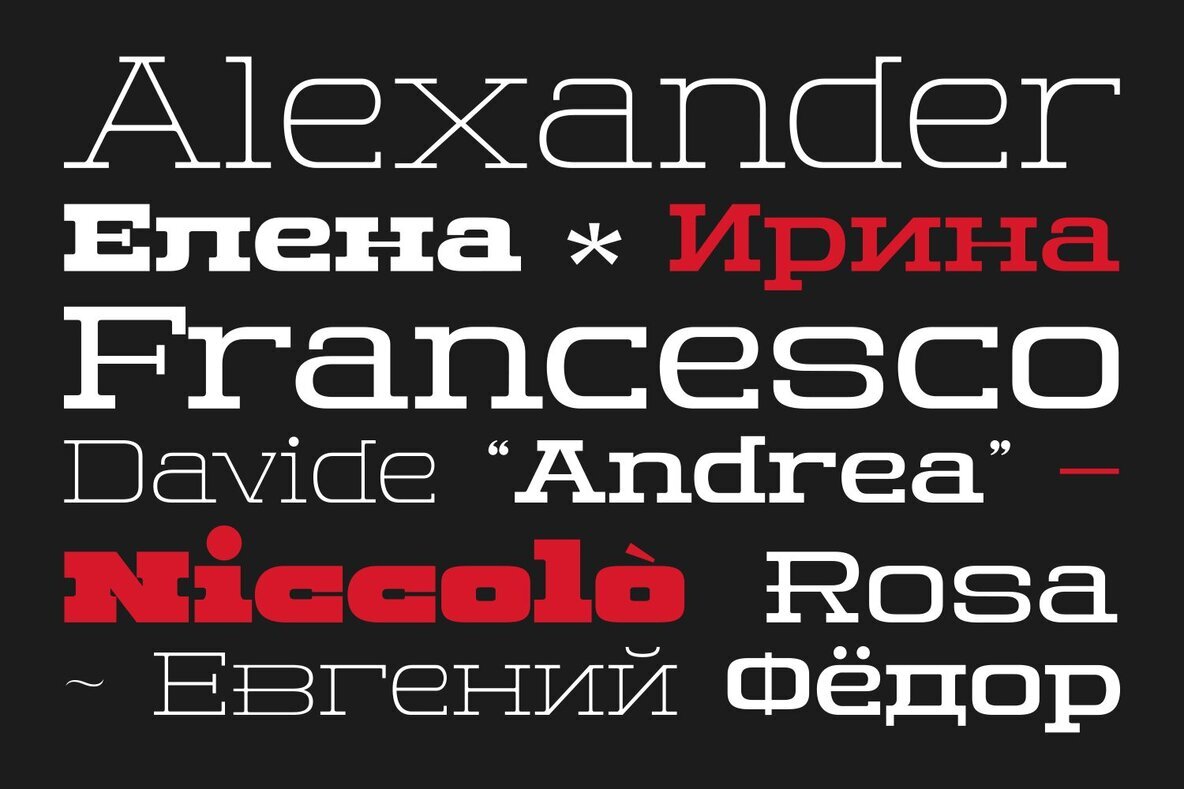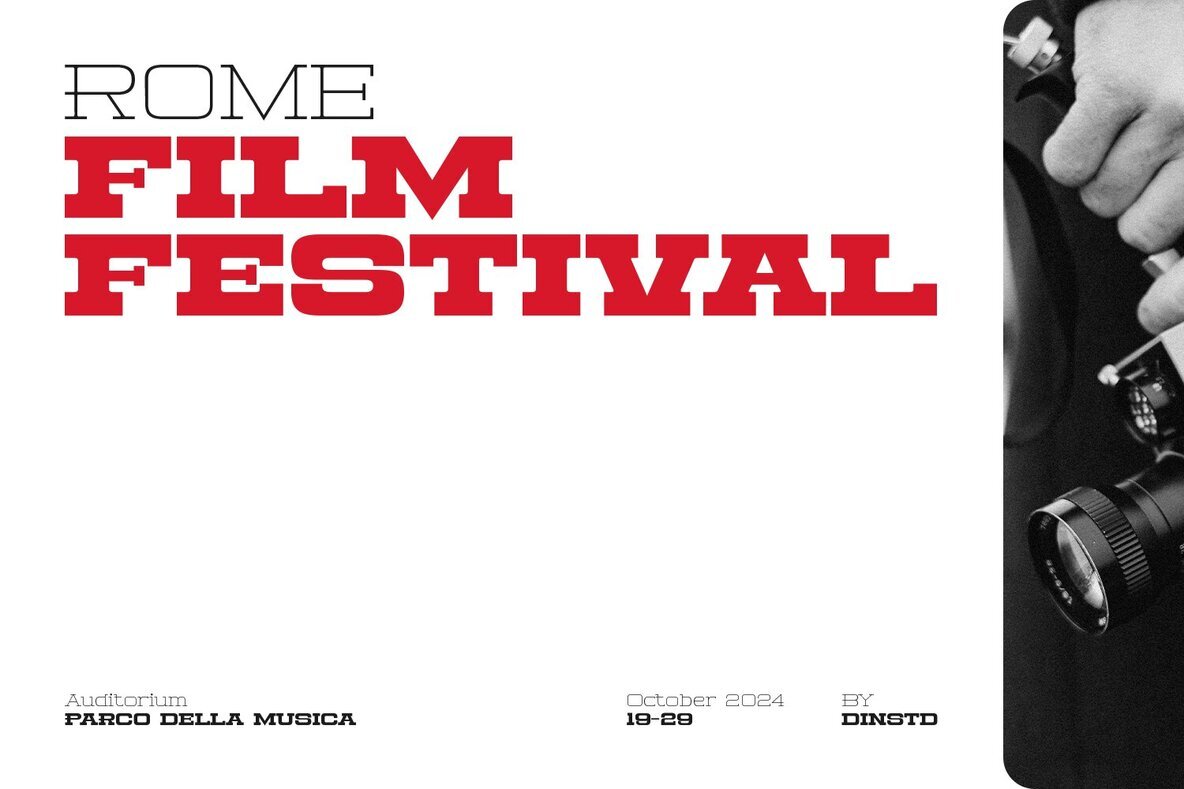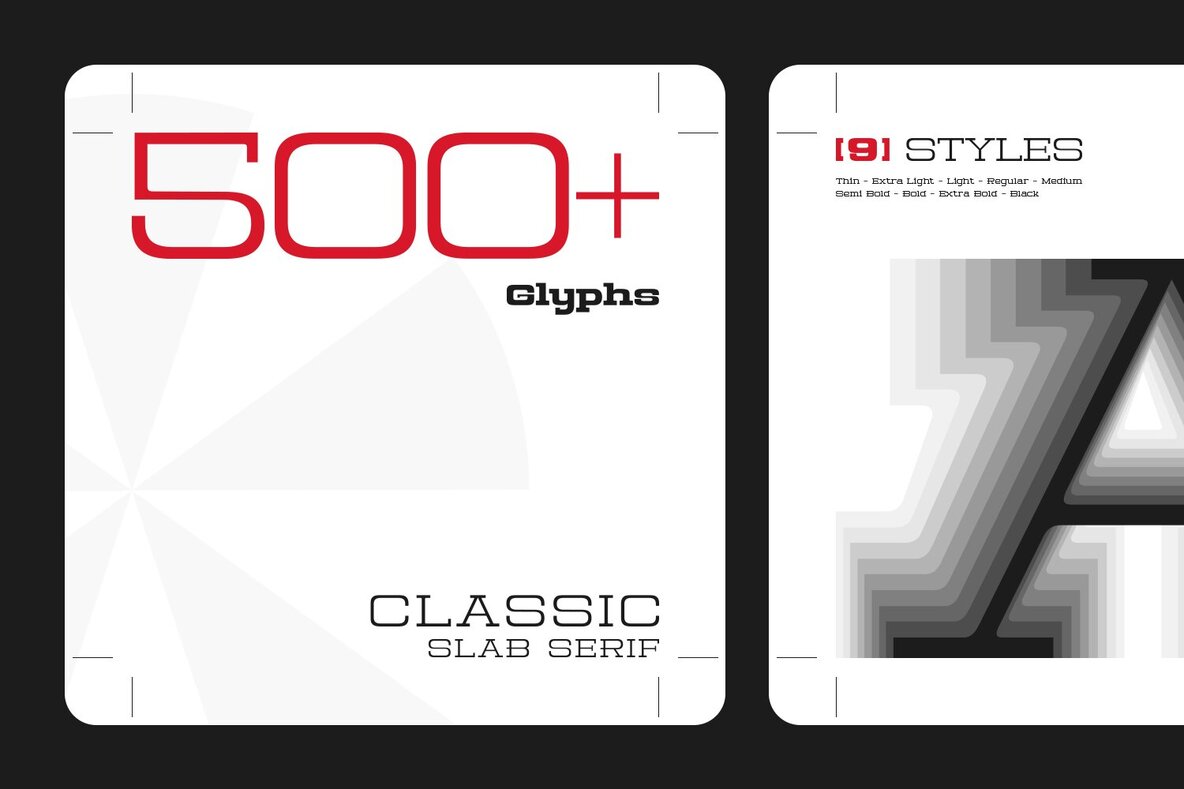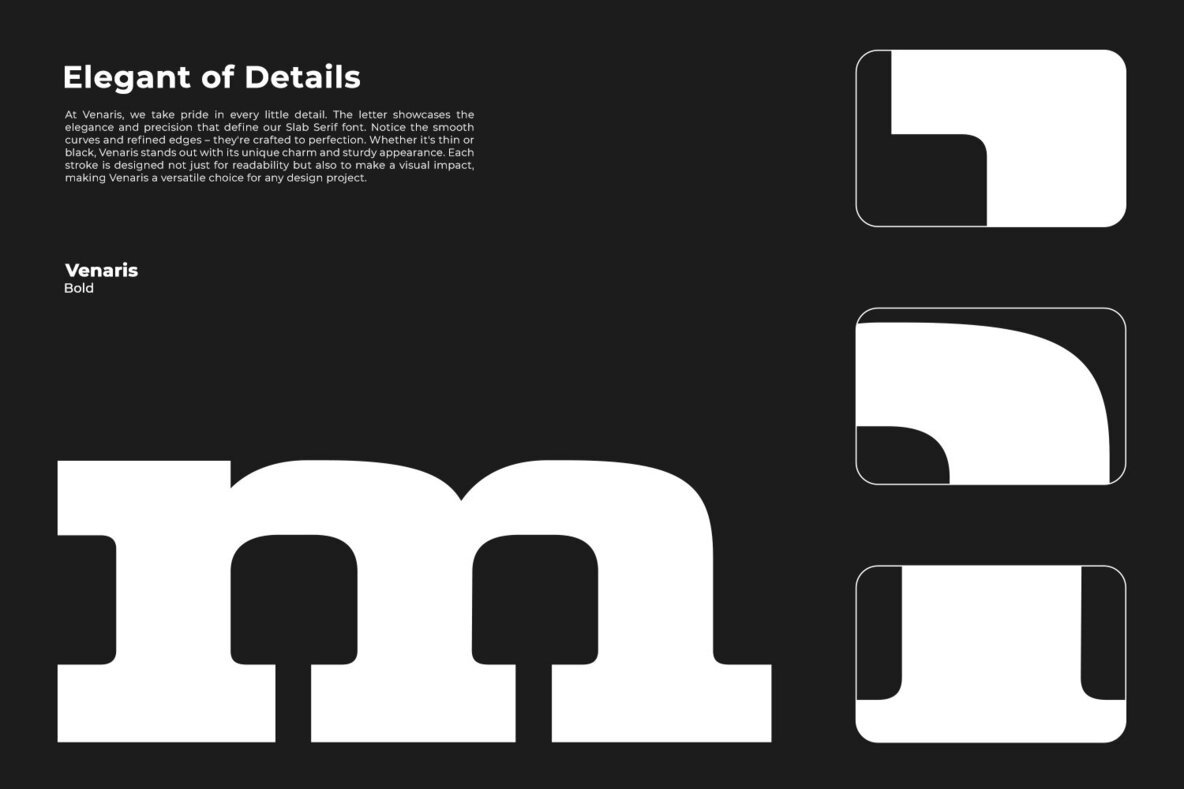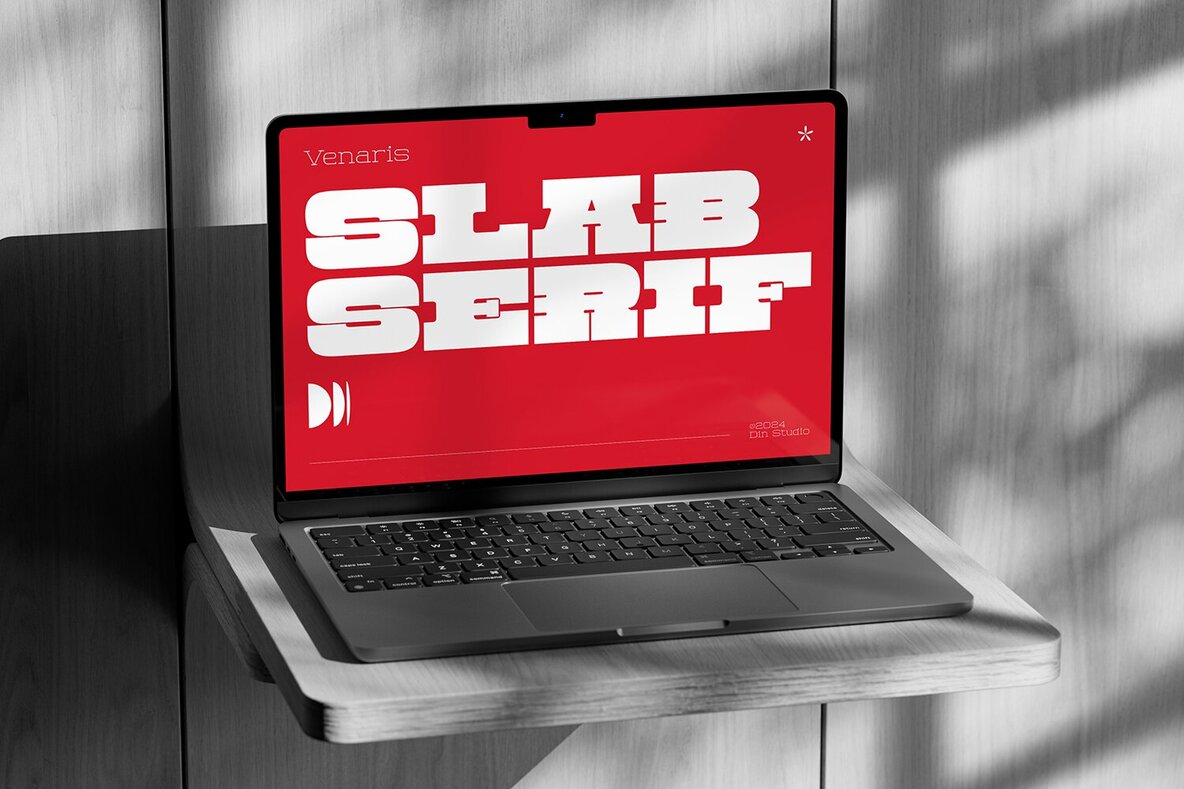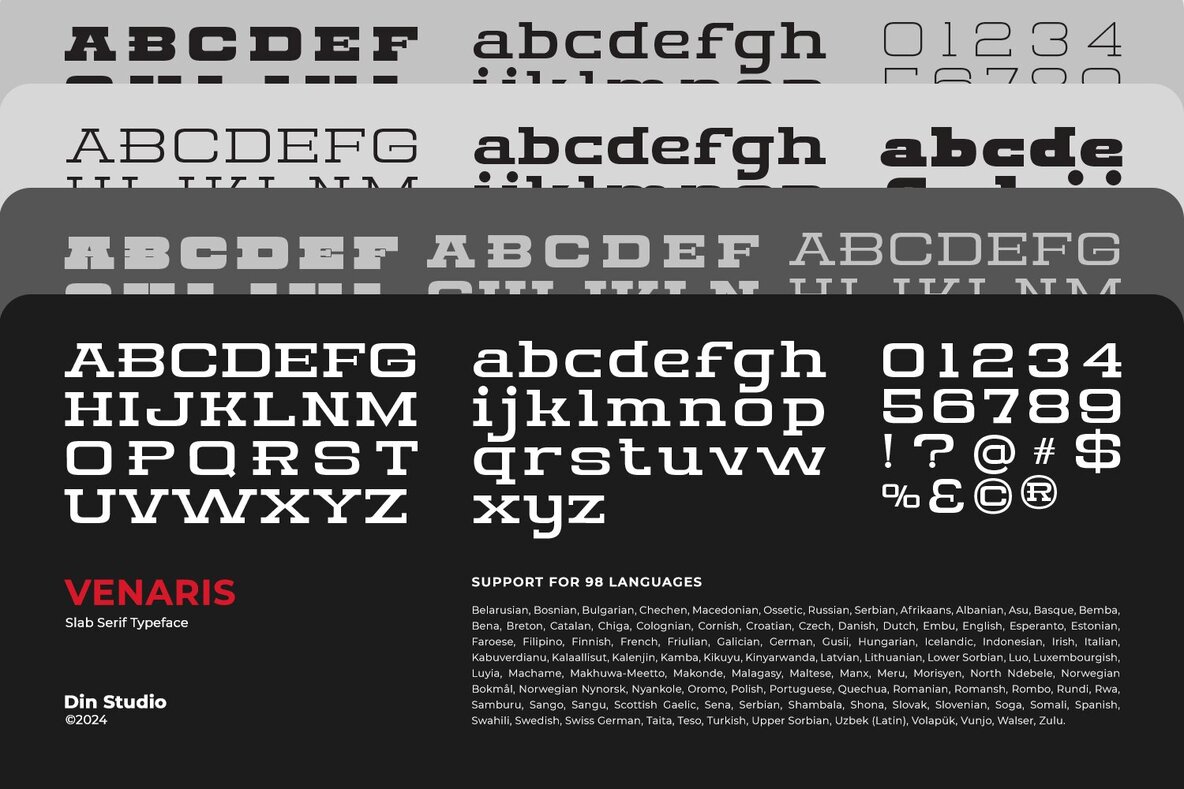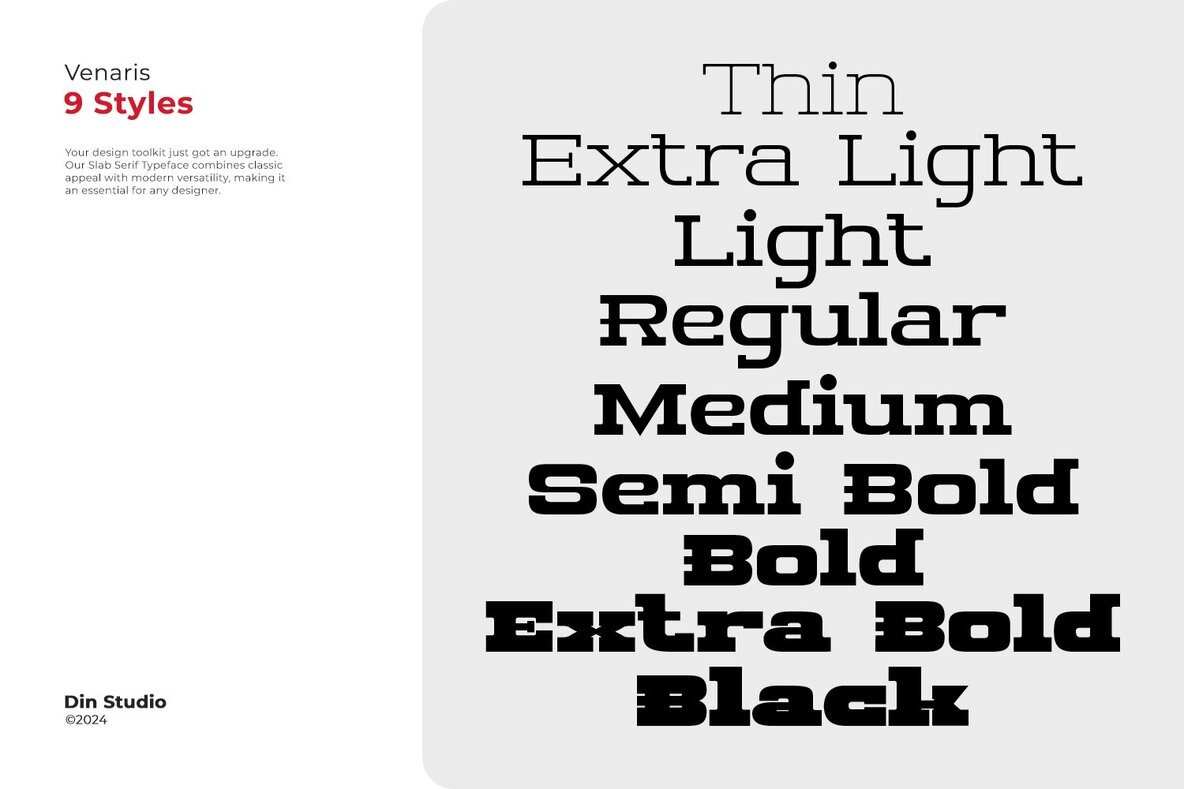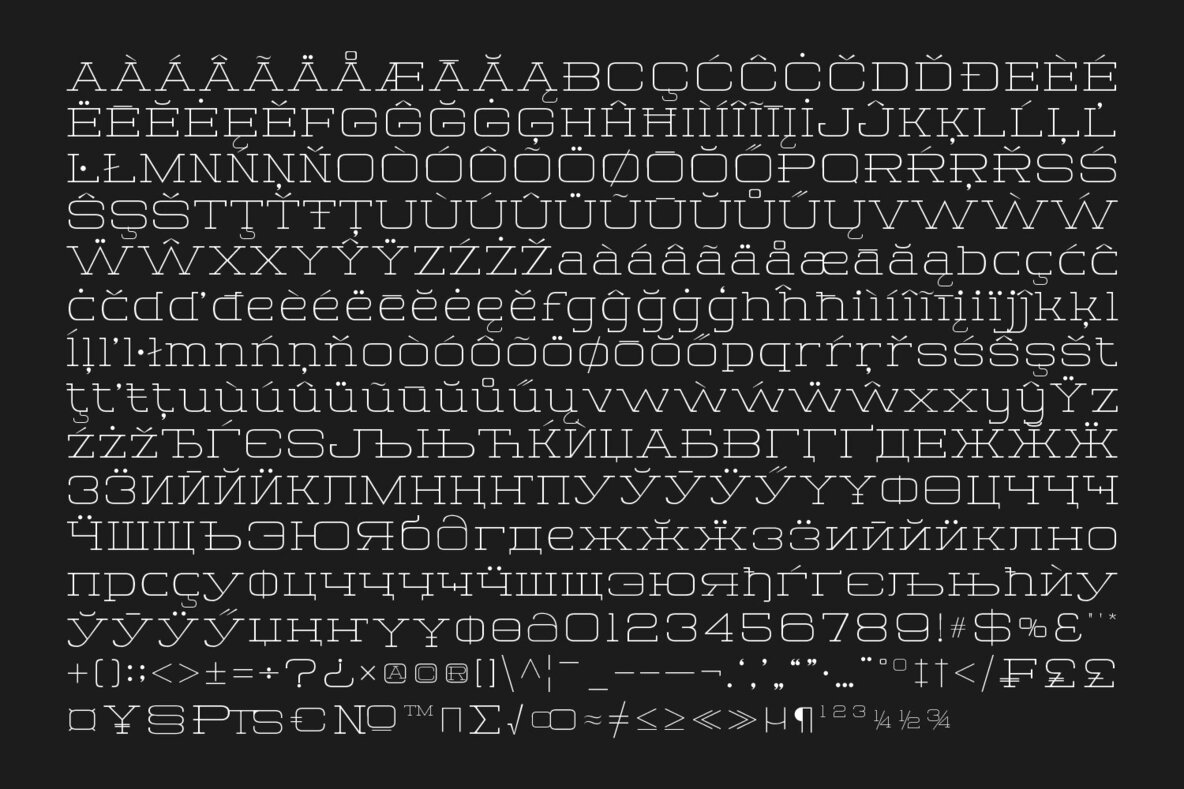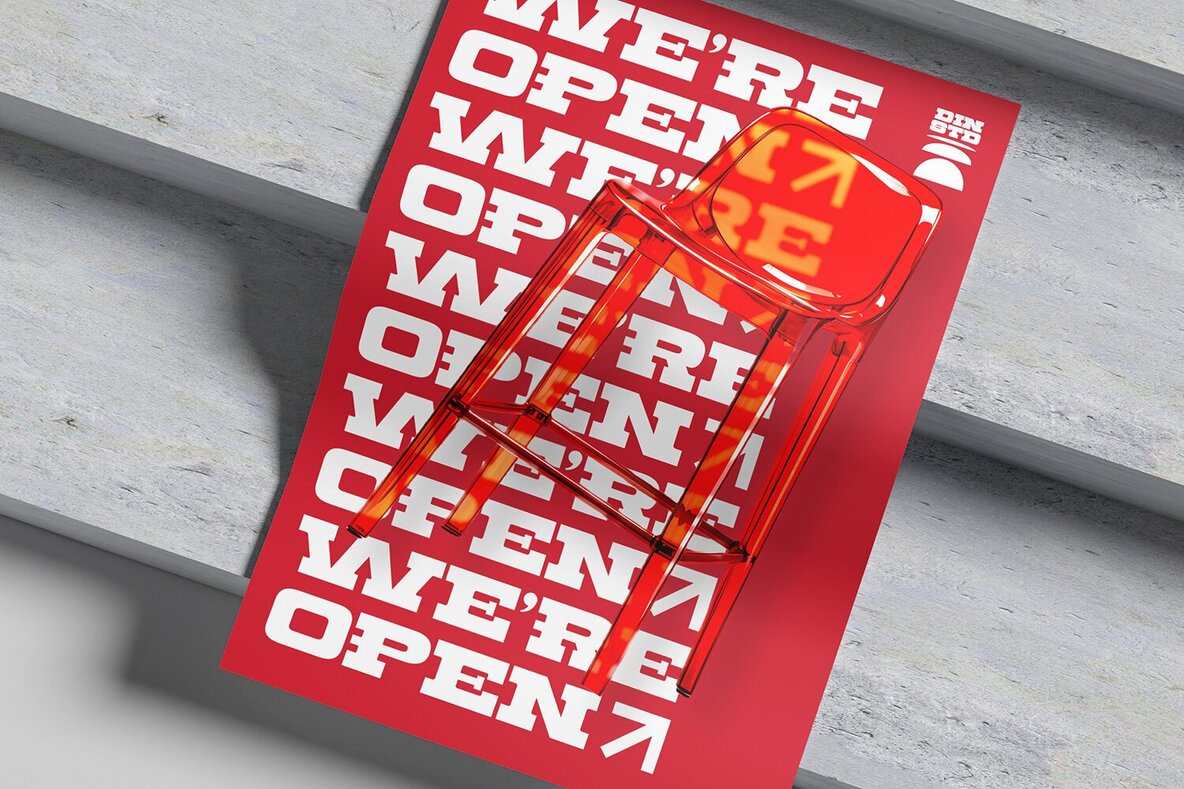
Venaris Font
Introducing Venaris-a sophisticated slab serif font family that embodies modern elegance. Crafted in 9 distinct weights, Venaris offers versatility and refinement for a wide range of design projects. Its clean lines and balanced proportions provide a contemporary aesthetic, while the robust slab serifs add a touch of timeless strength. Elevate your typography with the polished style of Venaris. In addition, enjoy the features here. Venaris’s different weight fonts : Features: Venaris fits in headlines, logos, posters, flyers, branding materials, greeting cards, print media, editorial layouts, and many more designs. Find out more ways to use this font by taking a look at the font preview.